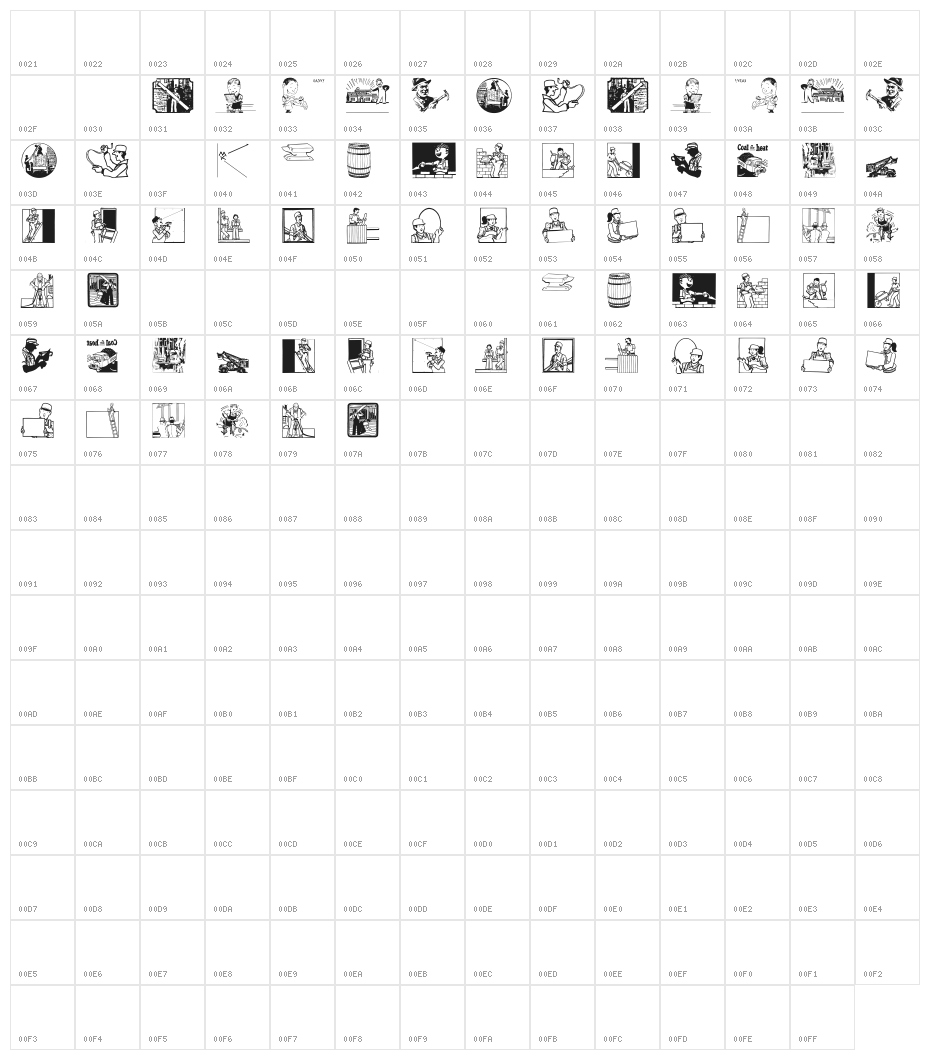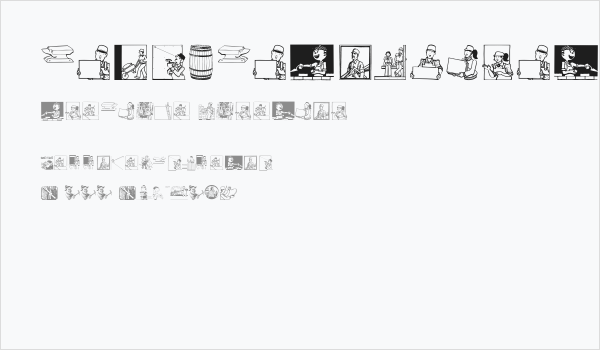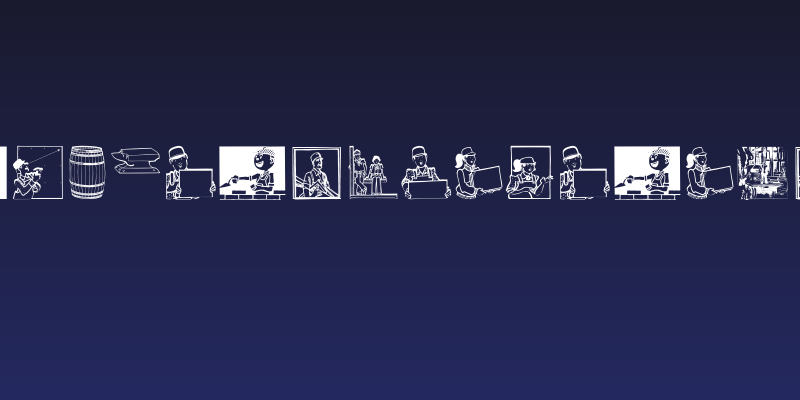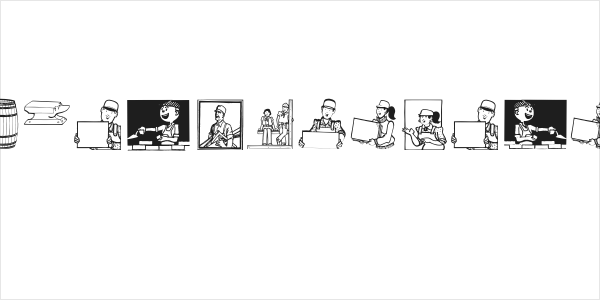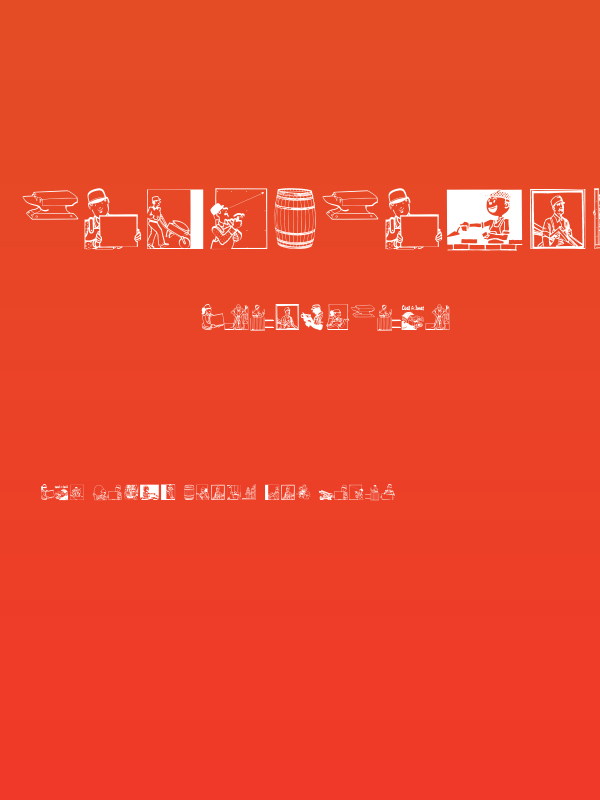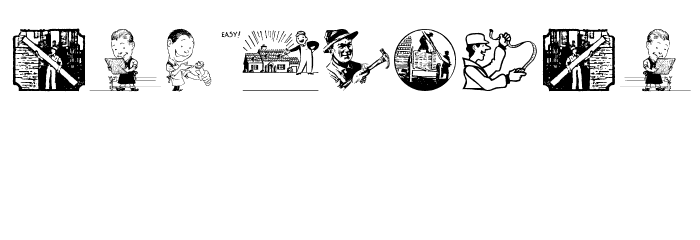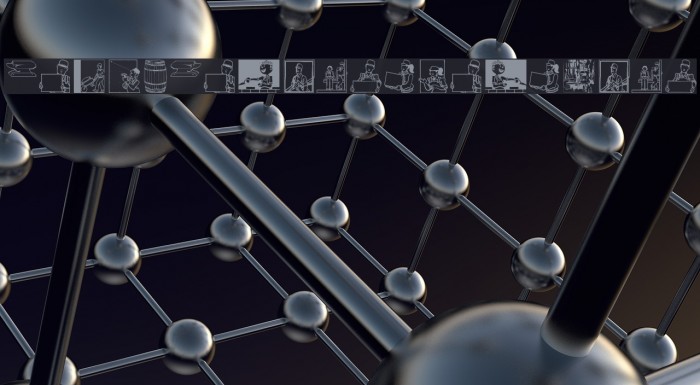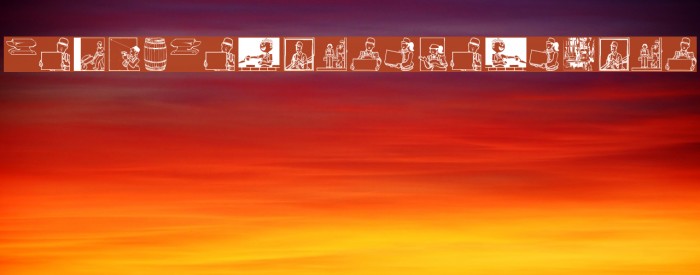
AufmBauConstructions Font
AufmBauConstructions Description
A decorative dingbat font featuring detailed black-and-white illustrations of construction workers, tools, and building scenes, each character representing a unique construction-related image.
| Overall Style | Decorative, Thematic, Vintage |
| Use Case | Logos, Posters, Themed graphics, Educational materials |
| Proposed Projects | Posters, educational materials, infographics, themed invitations, branding for construction companies. |